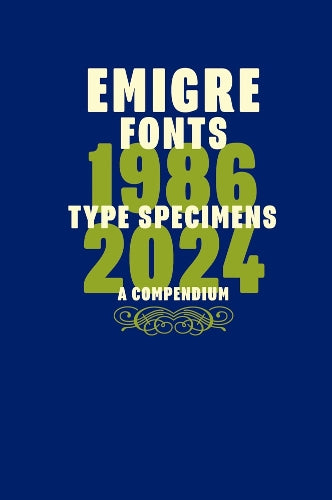
Emigre Fonts: Type Specimens 1986–2024
A 1,500-page compendium containing nearly five decades of remarkable print ephemera from a trailblazing digital type foundry
Emigre is a graphic design and digital type foundry based in Berkeley, California. Founded in 1985 by the husband-and-wife team Rudy VanderLans and Zuzana Licko, it was one of the first independent digital type foundries to explore the new design possibilities offered by the MacIntosh computer. It is also known for its legendary design magazine, Emigre, which was a quarterly magazine published between 1984 and 2005.
To announce each of its new typeface releases, Emigre published small booklets displaying the virtues of its fonts and revealing the processes used to design them. More than simple sales tools, these type specimens were enjoyed as much for their inventive contents and layouts as for their innovative typeface designs. In 2016, Emigre published the first 18 years of these type specimens in a single book, spanning 1986–2004.
This volume reissues the popular contents of the 2016 title (now out of print) and picks up where it left off, combining those first 18 years of materials with additional materials from Emigre’s archive, covering 2004 to the present. The result is a massive 1,500-page reference providing a definitive and up-to-date collection of the foundry’s remarkable print ephemera since its inception.